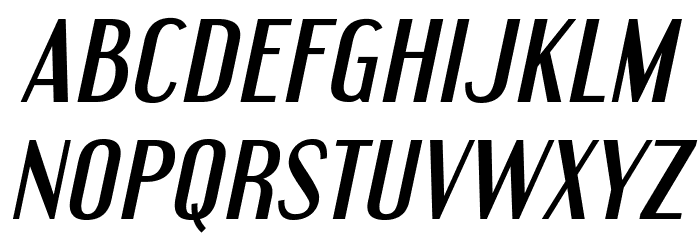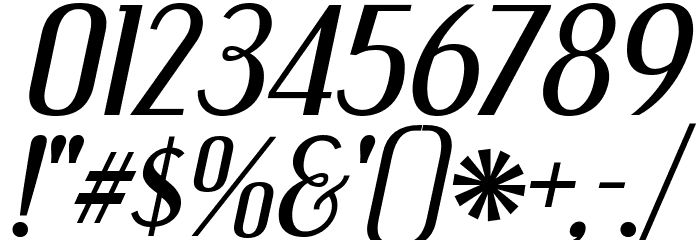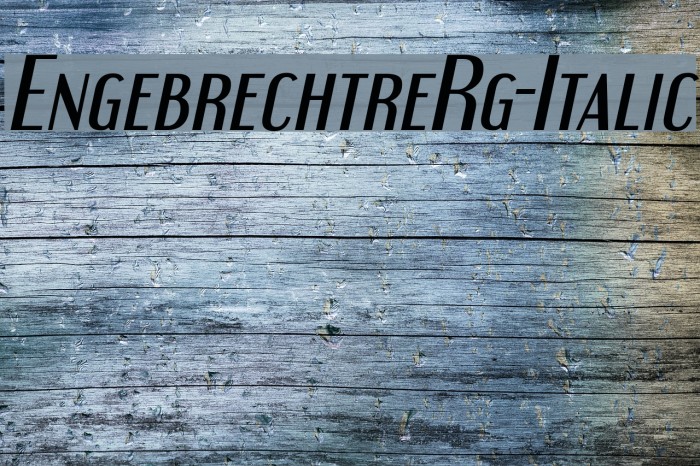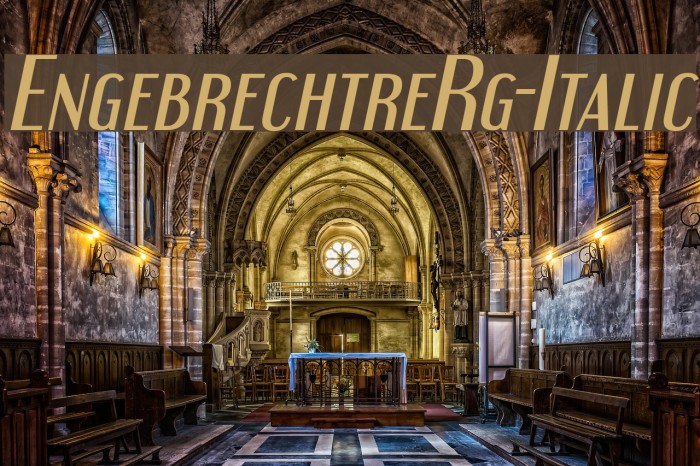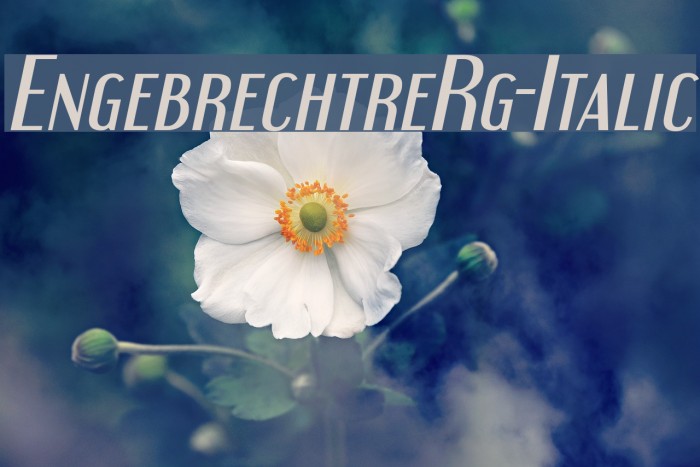
EngebrechtreRg-Italic Font
This font features a sleek and modern italic style with a distinct slant that adds a sense of motion and elegance. The characters are elongated with a slight curvature, giving them a dynamic and sophisticated appearance. The uppercase and lowercase letters maintain a consistent style, with smooth transitions and clean lines. The numerals are well-proportioned, ensuring readability, while the special characters are designed to complement the overall aesthetic. The font's design is both stylish and functional, making it suitable for a variety of applications.
A sleek, modern italic font with elongated, dynamic characters.
- Proposed Projects: Ideal for fashion magazines, modern branding, elegant invitations, and dynamic advertising campaigns.
- Use Case: Headlines, Logos, Branding